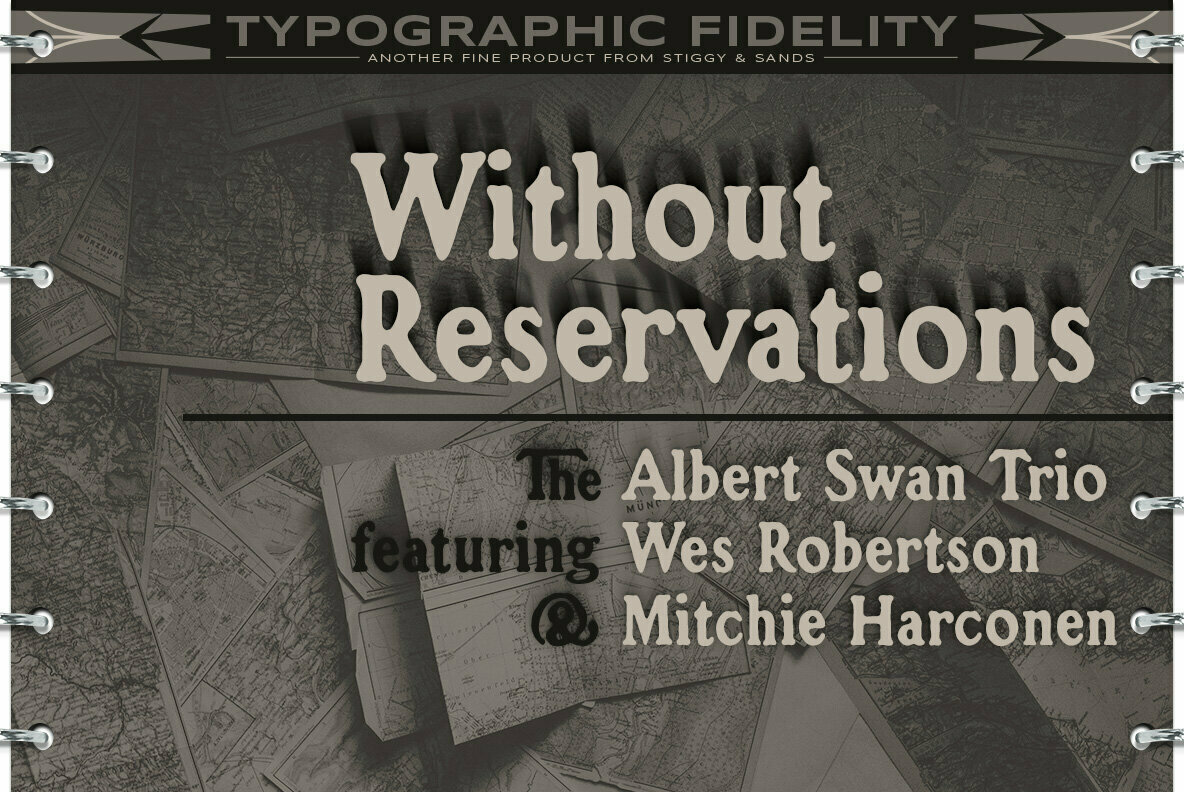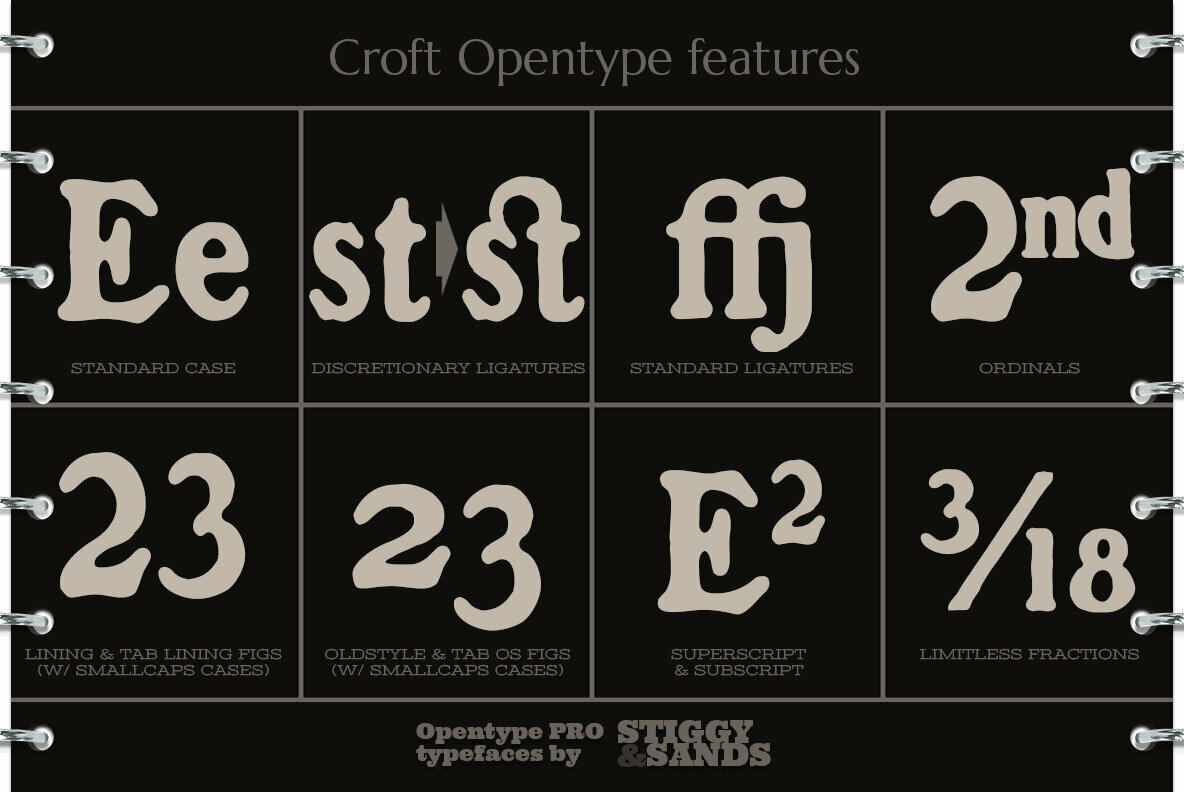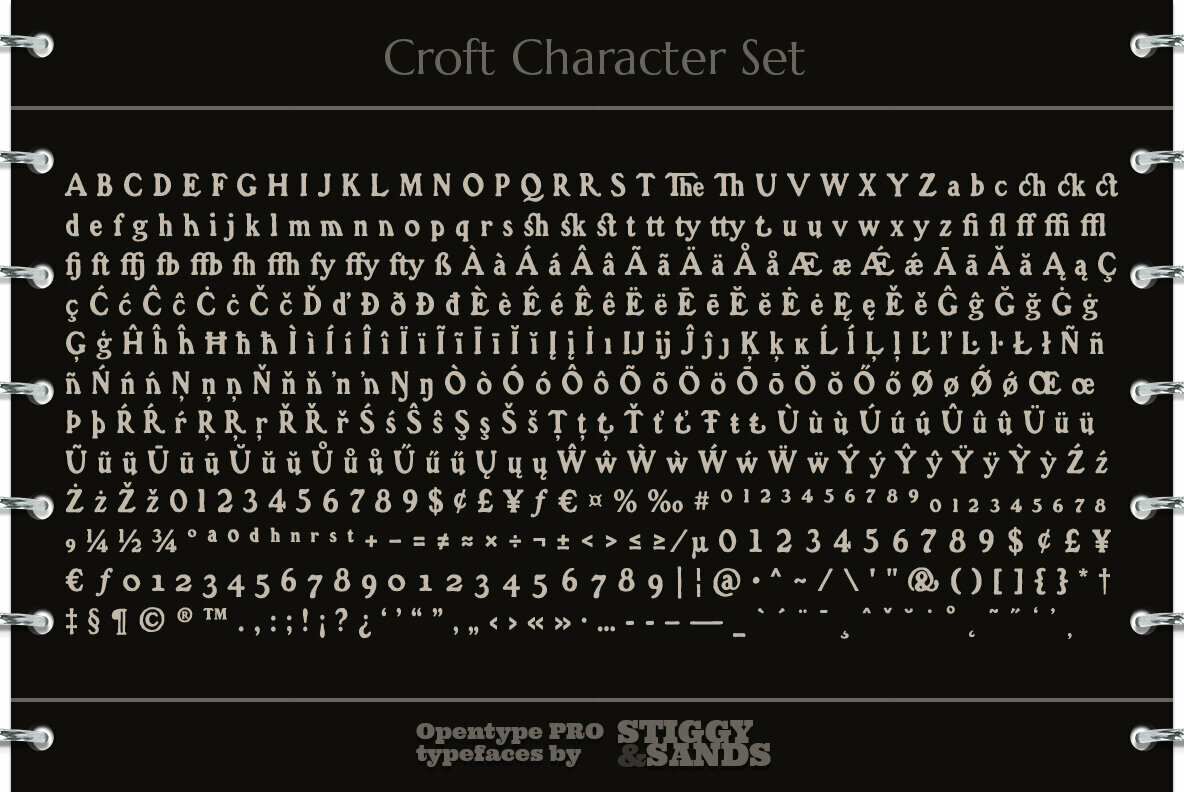
Croft Font
Croft Regular
Croft reintroduces a classic typographical design from the turn of the 20th century, capturing both the historical essence and contemporary relevance of the original. This typeface, inspired by Lewis Buddy III and Morris Benton's early work, pays tribute to the rugged aesthetic found in 1912's ATF catalogs. Croft stands as a bridge between past and present, integrating early grunge elements with today's design needs through its robust set of features. Features:Croft: Historical Typography Reimagined